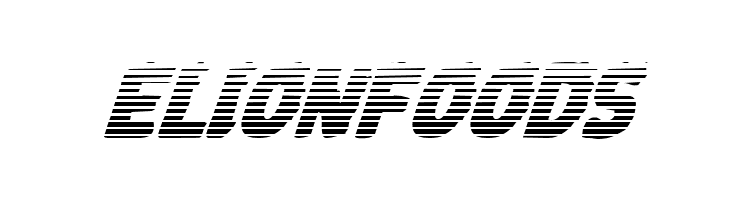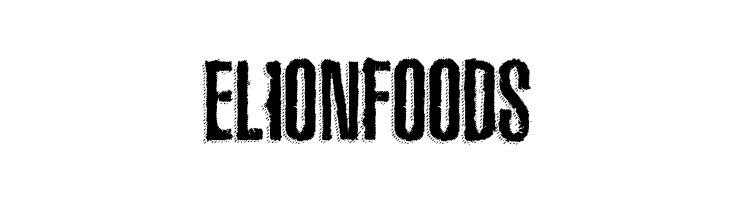
A bold, italicized font with a dynamic gradient effect and modern appeal.
A bold, distressed font with a vintage, rugged appearance.
A bold serif font with a classic yet modern appeal, featuring sharp and clean characters.
Elegant italic font with smooth, flowing letterforms and a classic style.
A bold, modern serif font with elegant proportions and excellent readability.
A refined italic font with smooth curves and moderate contrast.
An elegant italic serif font with smooth curves and classic style.
A bold, italicized font with strong, dynamic letterforms.
A classic serif font with elegant strokes and a timeless appearance.
A modern, geometric sans-serif font with a clean and minimalist design.